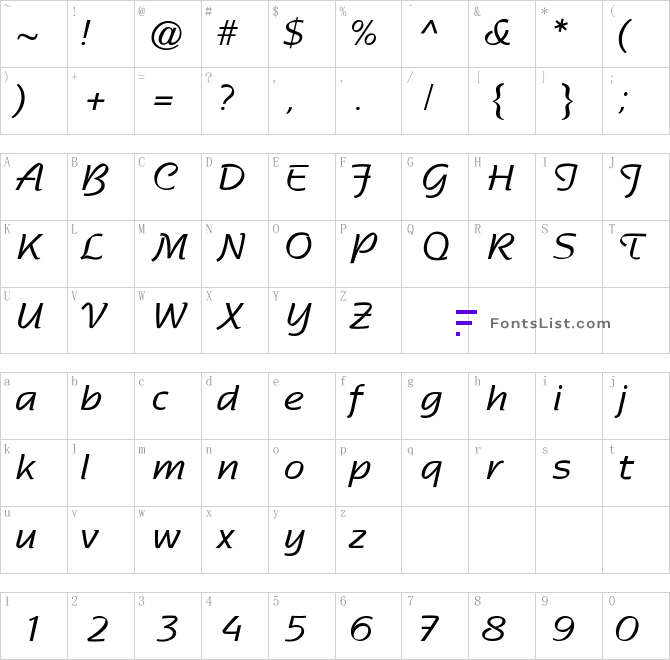
ATNadianne-Medium.ttf is a very beautiful artistic font, ATNadianne-Medium.ttf is widely used in the design and printing of various books and pictures,ATNadianne-Medium.ttf has a strong visual impact,ATNadianne-Medium.ttf is a commonly used font in newspapers, magazines and books, and is used in posters, e-commerce Poster design, store design, logo design, font design and other fields.ATNadianne-Medium.